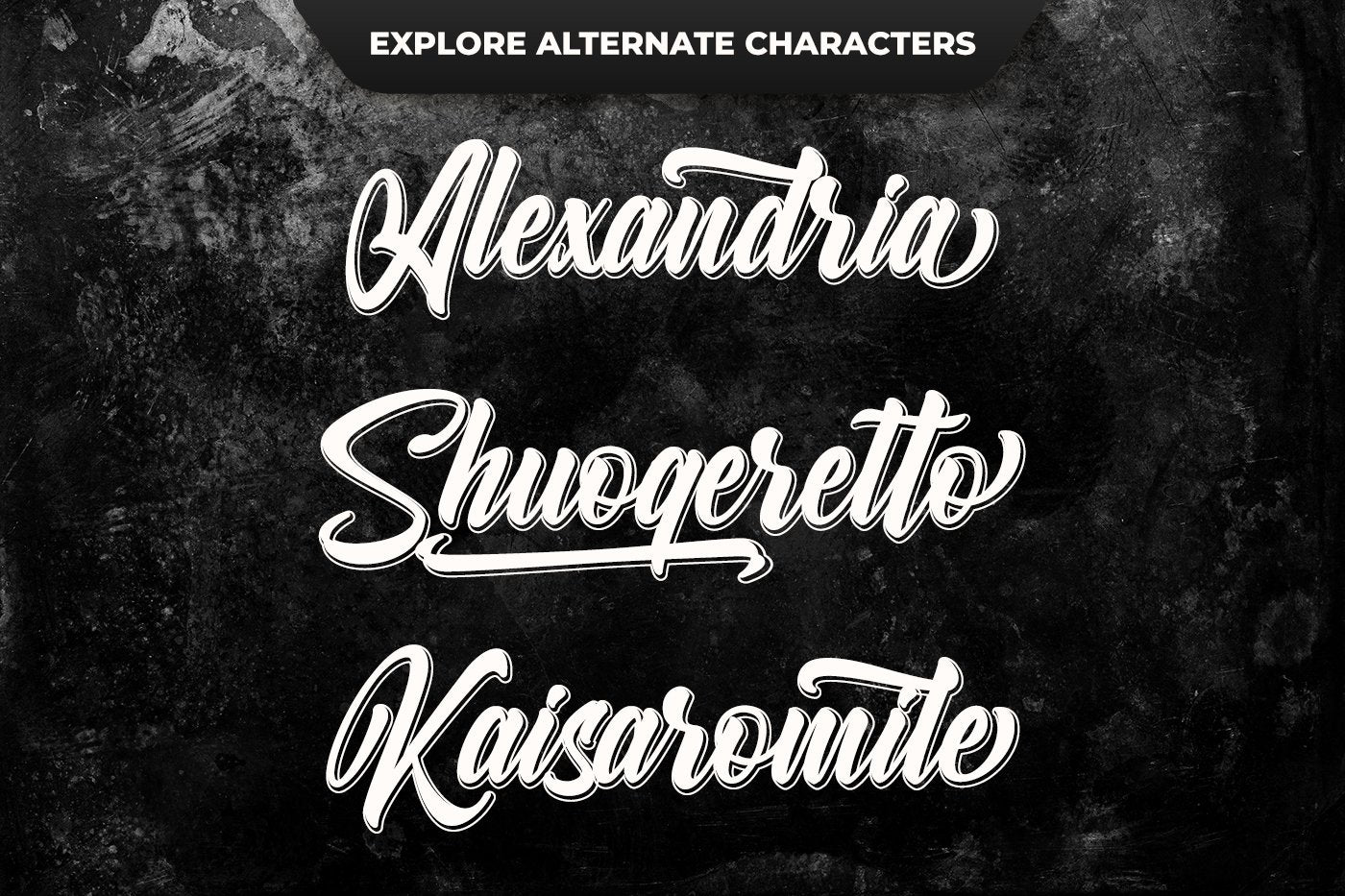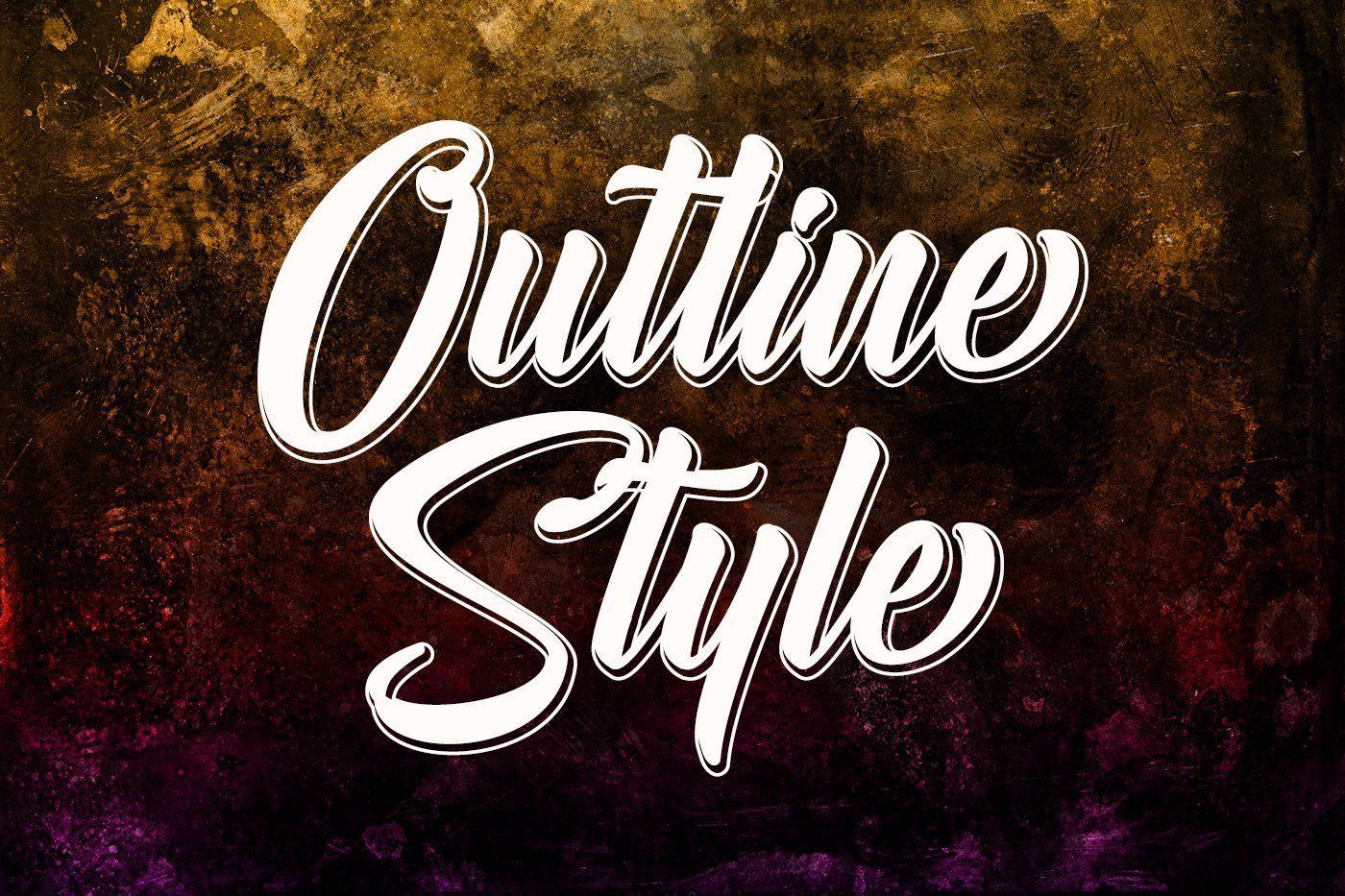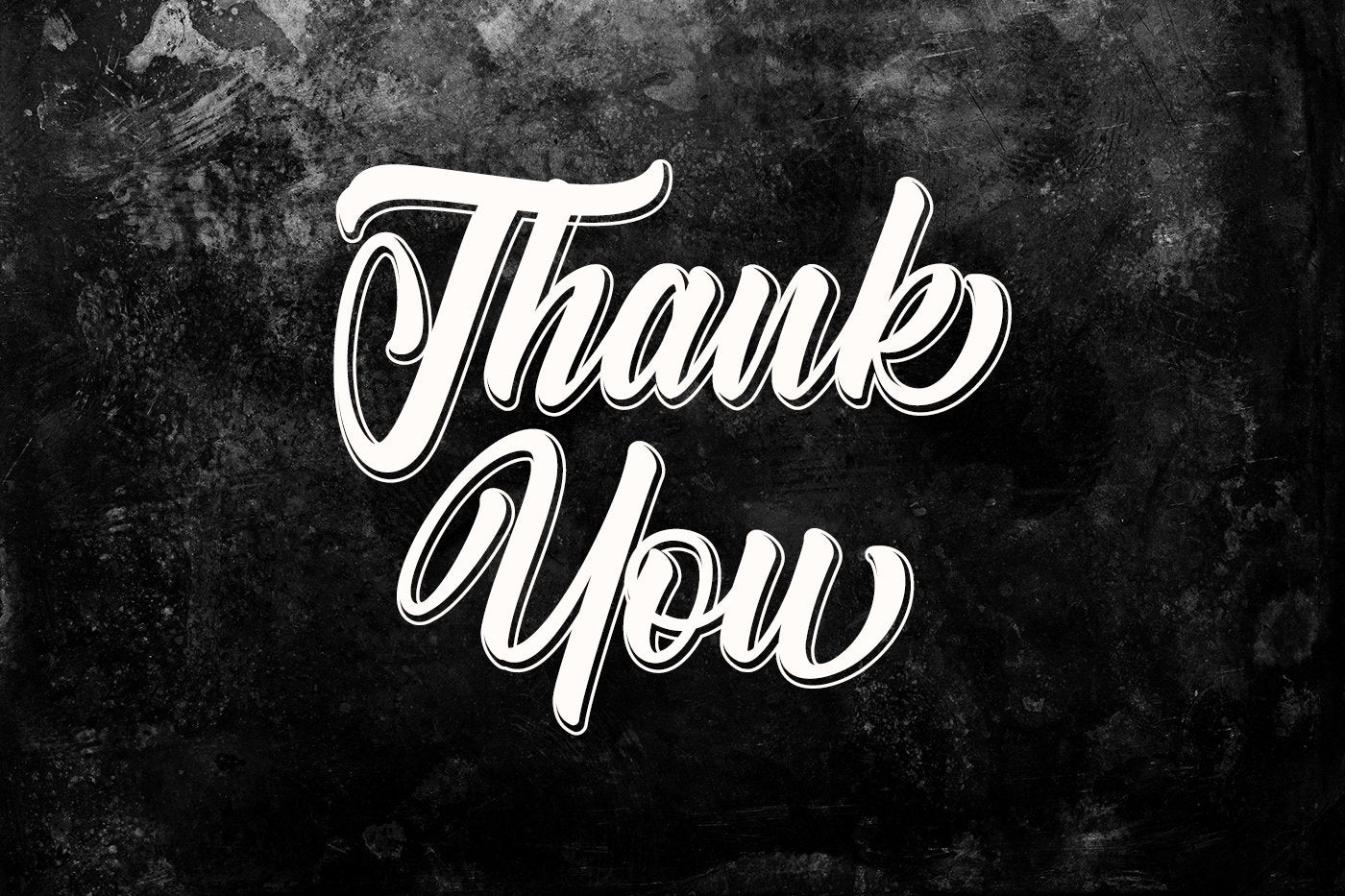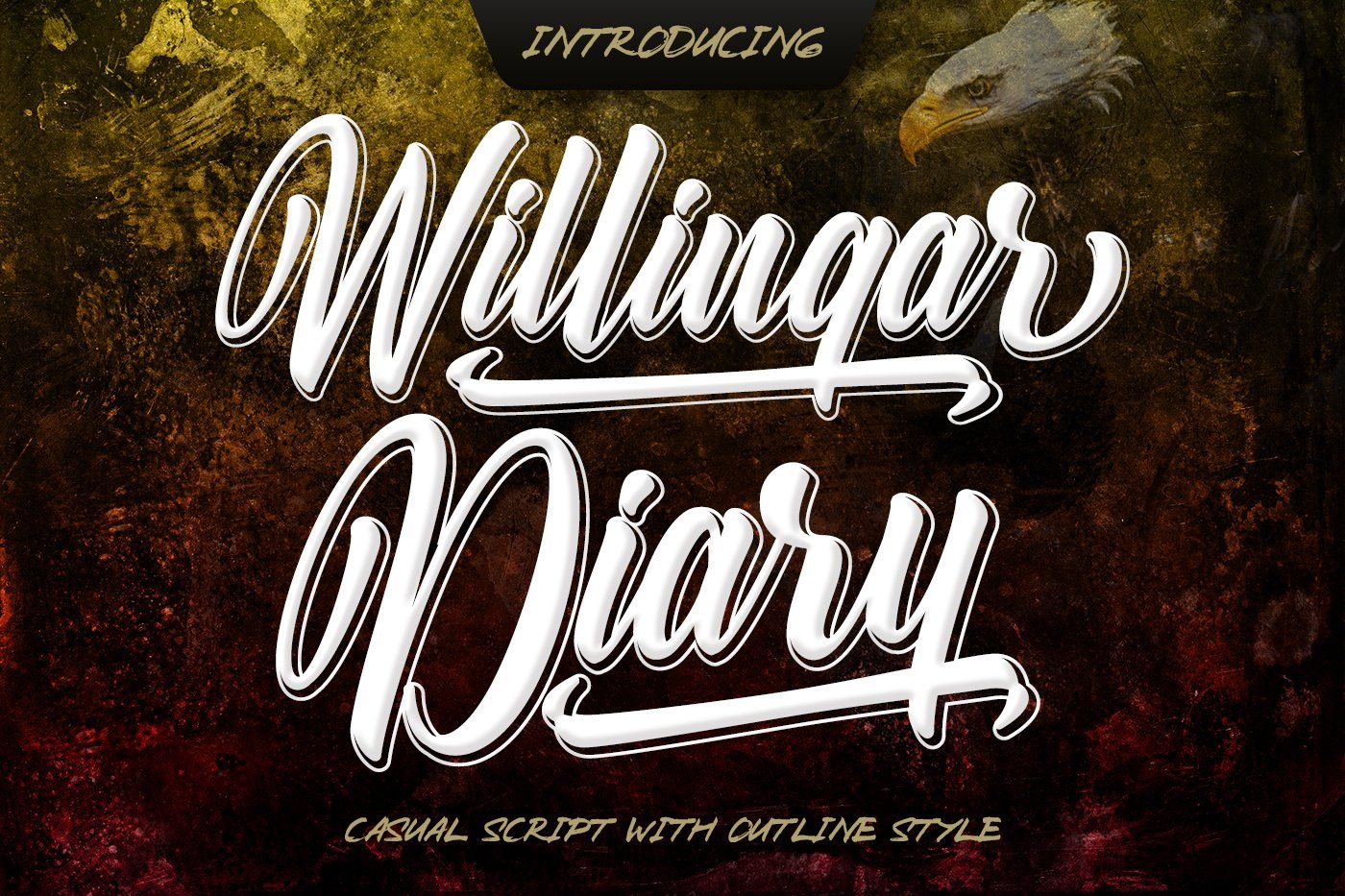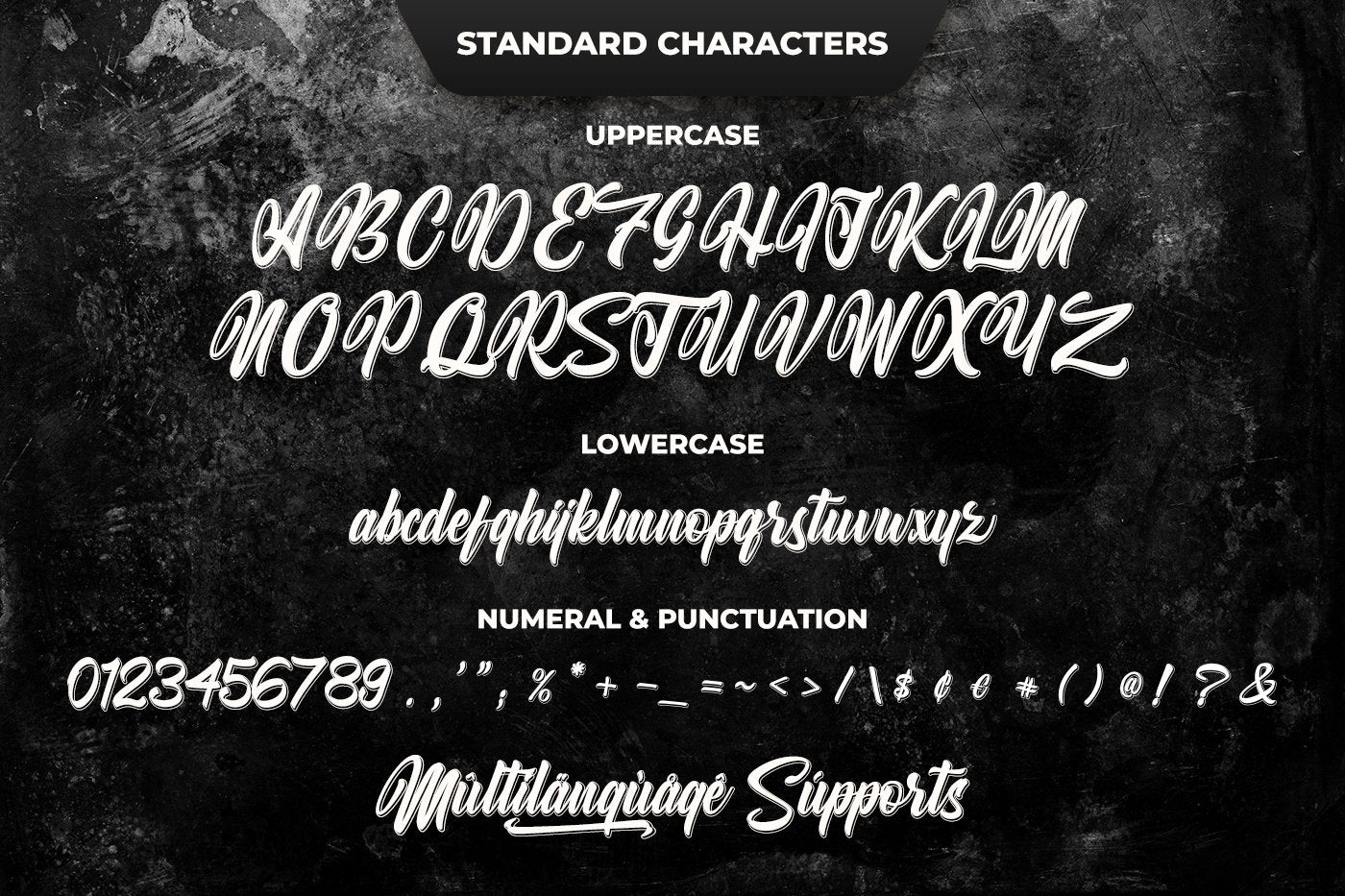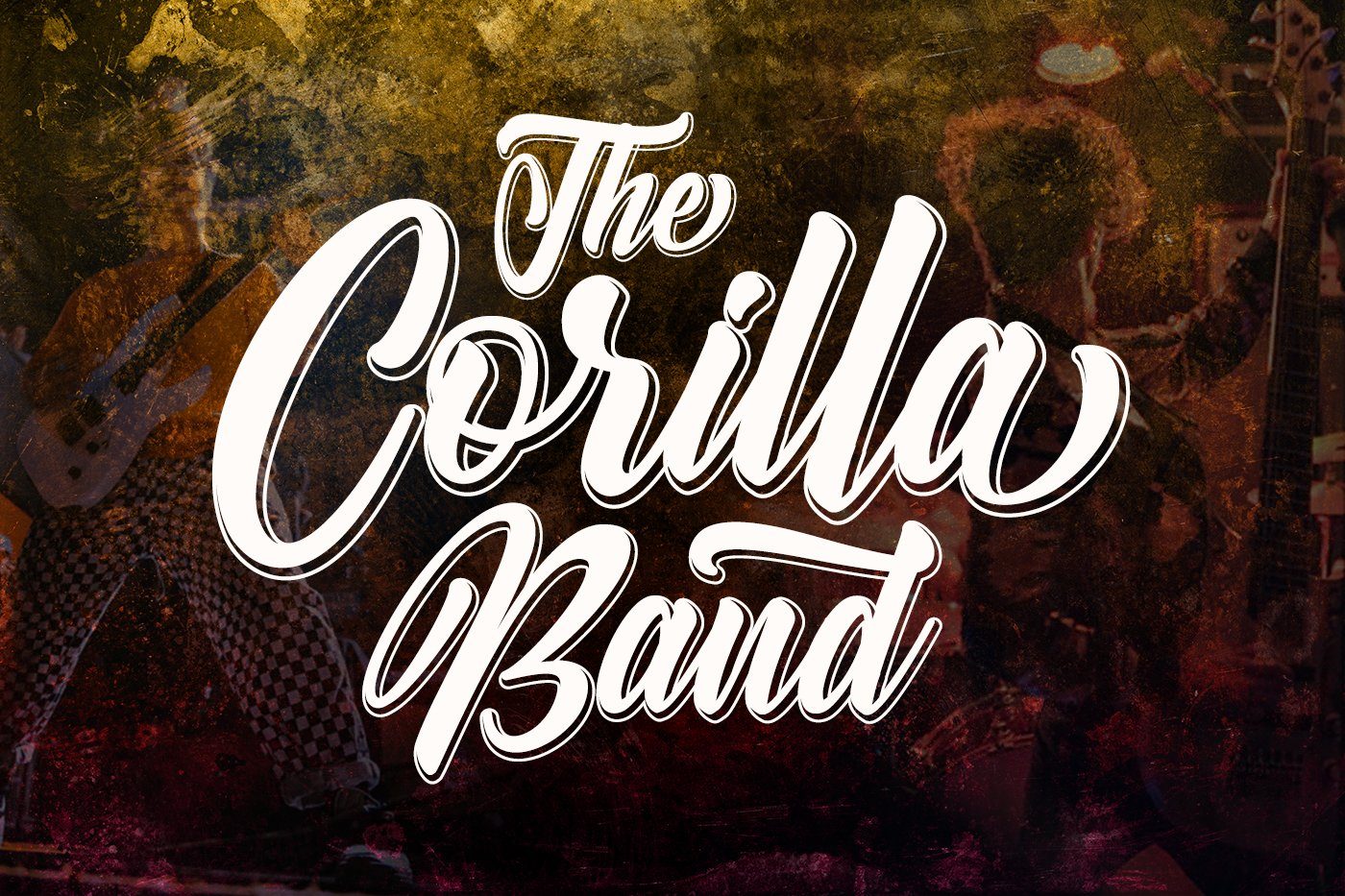
Willingar Diary
Introducing my new font Willingar Diary!!! A casual script typeface and combination with Outline style which gives more personal touch and makes the font looks being customized. This font is suitable to use as a logotype, product designs, label, watermark, social media posts, apparel, invitation, signboard, sports club, motor/car, special events or anything that need handwriting taste. What you get: WillingarDiary.ttf, WillingarDiary.otf, and WillingarDiary.woff Willingar Diary includes capital and lowercase letters, Alternates, and Ligatures Numbers + punctuation Foreign language support I highly recommend using a program that supports OpenType features and Glyphs panels such as Adobe Illustrator, Adobe Photoshop CC, Adobe InDesign, or CorelDraw, so you can see and access all Glyph variations. Willingar Diary is encoded with Unicode PUA, which allows full access to all additional characters without having special design software. Mac users can use Font Book, and Windows users can use Character Map to view and copy one of the extra characters to paste into your favorite text editor/application. We hope you enjoy the font. Thank You.